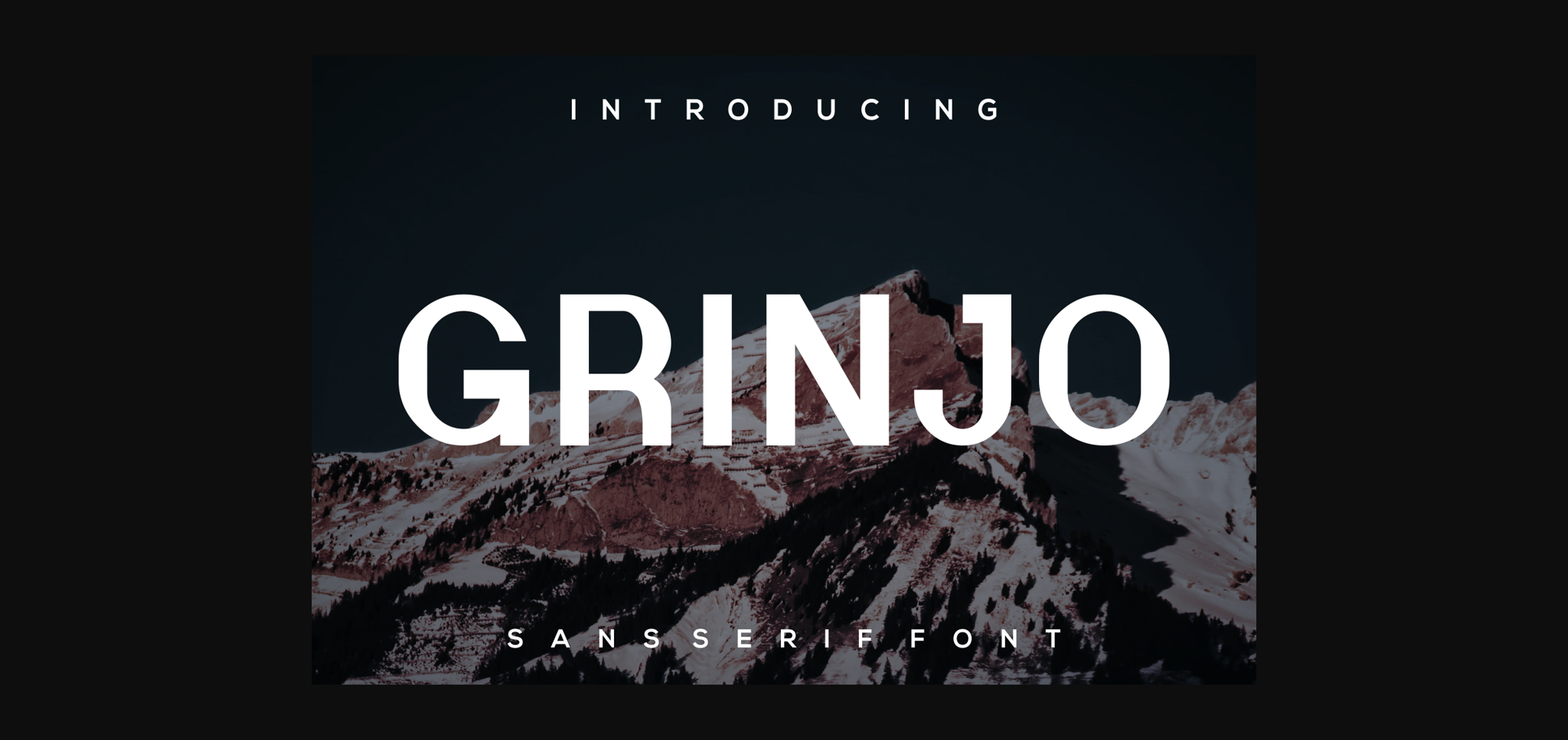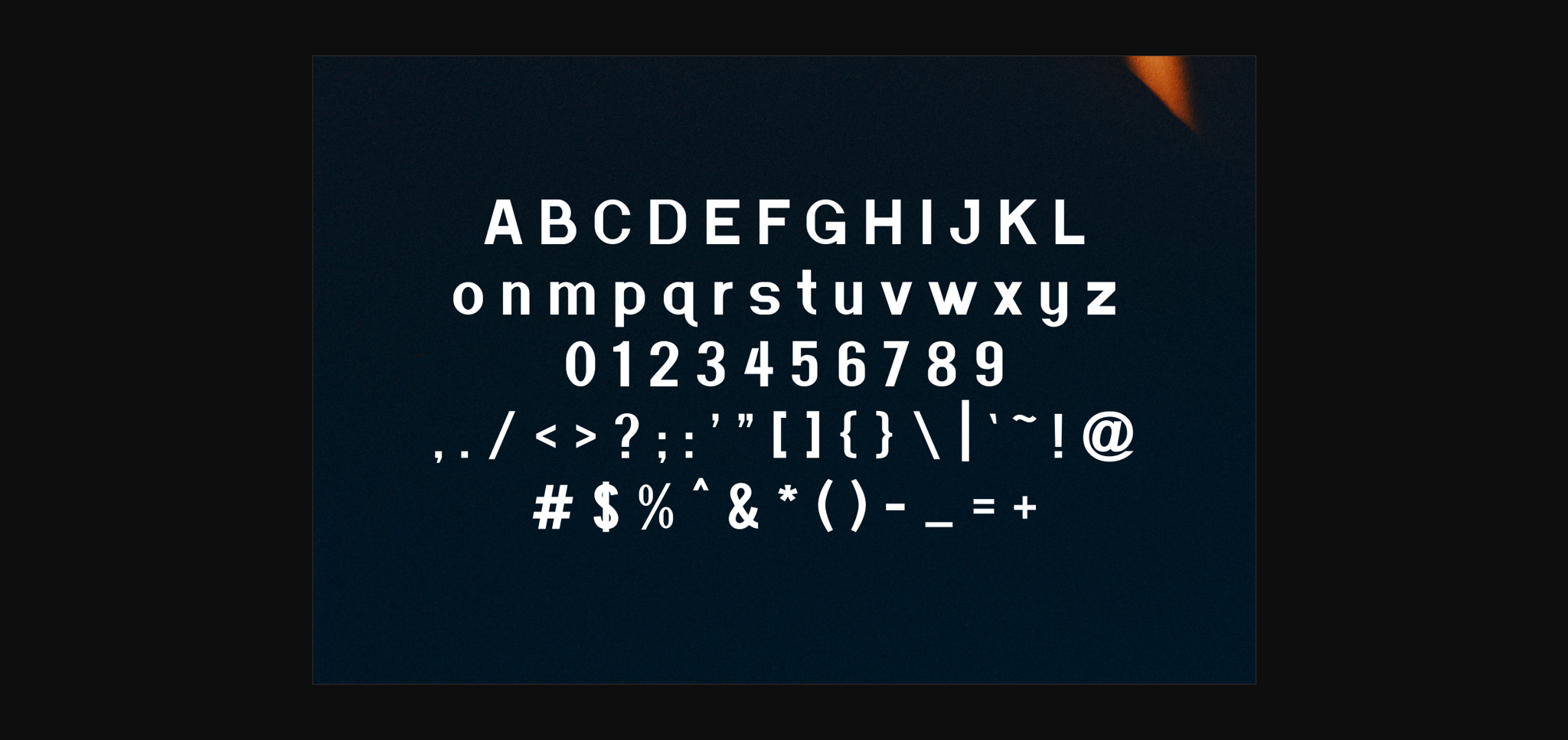
HomeSans Serif FontsGrinjo Font Sans Serif Fonts Grinjo Font FacebookXPinterestWhatsApp 1 of 4 ... Grinjo Font Poster 2... Grinjo Font Poster 3... Grinjo Font Poster 4... About Grinjo Font Grinjo is a cool and unique sans serif font. This font is neatly crafted and highly detailed. Whatever the topic, this font will be a wonderful asset to your font library, as it has the potential to enhance any creation. DOWNLOAD NOW People also explored Sanwanee Font The Khallid Font Hello Bithosa Font Cerilleta Script Font Explorer Daimaru Font Social Networks Icons Font Bloodlust Font Spring Season JNL Font 327 0 TagsGrinjoGrinjo Font Previous articleMizary FontNext articleTiphanie Yukkira Font LEAVE A REPLY Cancel reply Comment: Please enter your comment! Name:* Please enter your name here Email:* You have entered an incorrect email address! Please enter your email address here Website: Save my name, email, and website in this browser for the next time I comment. Personal Use Free Just Love Personal Use Free Read more about this font Burnstown Dam Personal Use Free Read more about this font Burgie Personal Use Free Read more about this font Frizton Personal Use Free Read more about this font BLOG Free Fonts Risk: Why Free Fonts Can Be Dangerous for Designers Free Fonts Risk: Why Free Fonts Can Be Dangerous for Designers Using free fonts is a common practice in web and graphic design. However, the... Fonts That Capture the Spirit of New York City Transform Your Website: Elevate Your Typography with 7 Best Web Font Generators The 10 Best Handwriting Fonts to Add Personality to Your Designs